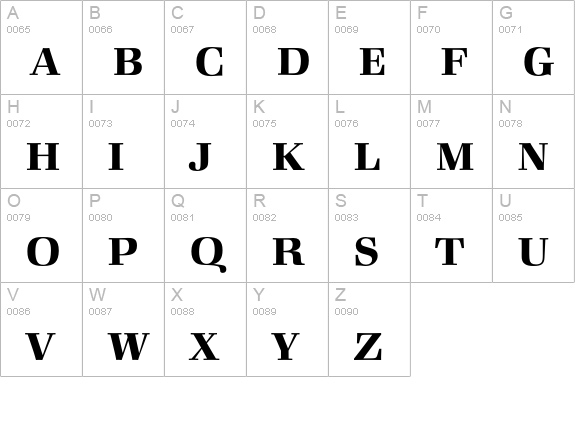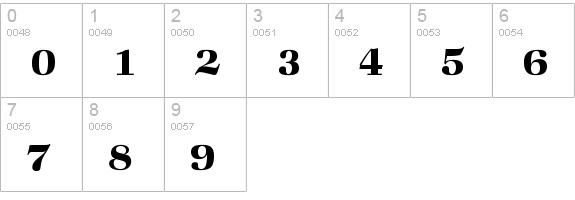
ZapfBookEF-Demi is a sub-bold, structured variant in the ZapfBookEF typeface family \xE2\x80\x94 well suited to sub-headlines and emphasised passages.
ZapfBookEF-Demi is a bold and eye-catching font that exudes elegance and sophistication. Its strong and sturdy appearance makes it perfect for headlines, titles, and any design project that requires a touch of modernity. The font's clean lines and balanced letterforms give it a timeless appeal that will enhance any design it is used in. And the best part? ZapfBookEF-Demi is available for free download at FontsMarket.com! This means you can easily access this beautiful font and use it in your projects without any cost. Don't miss the opportunity to add this versatile and stylish font to your collection today.